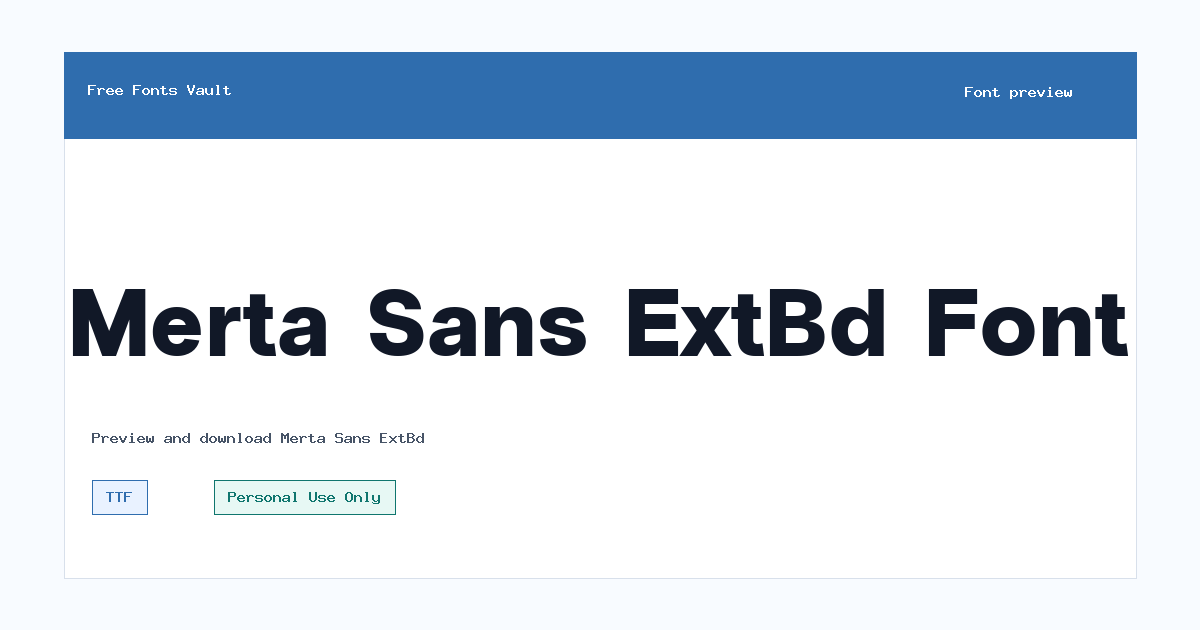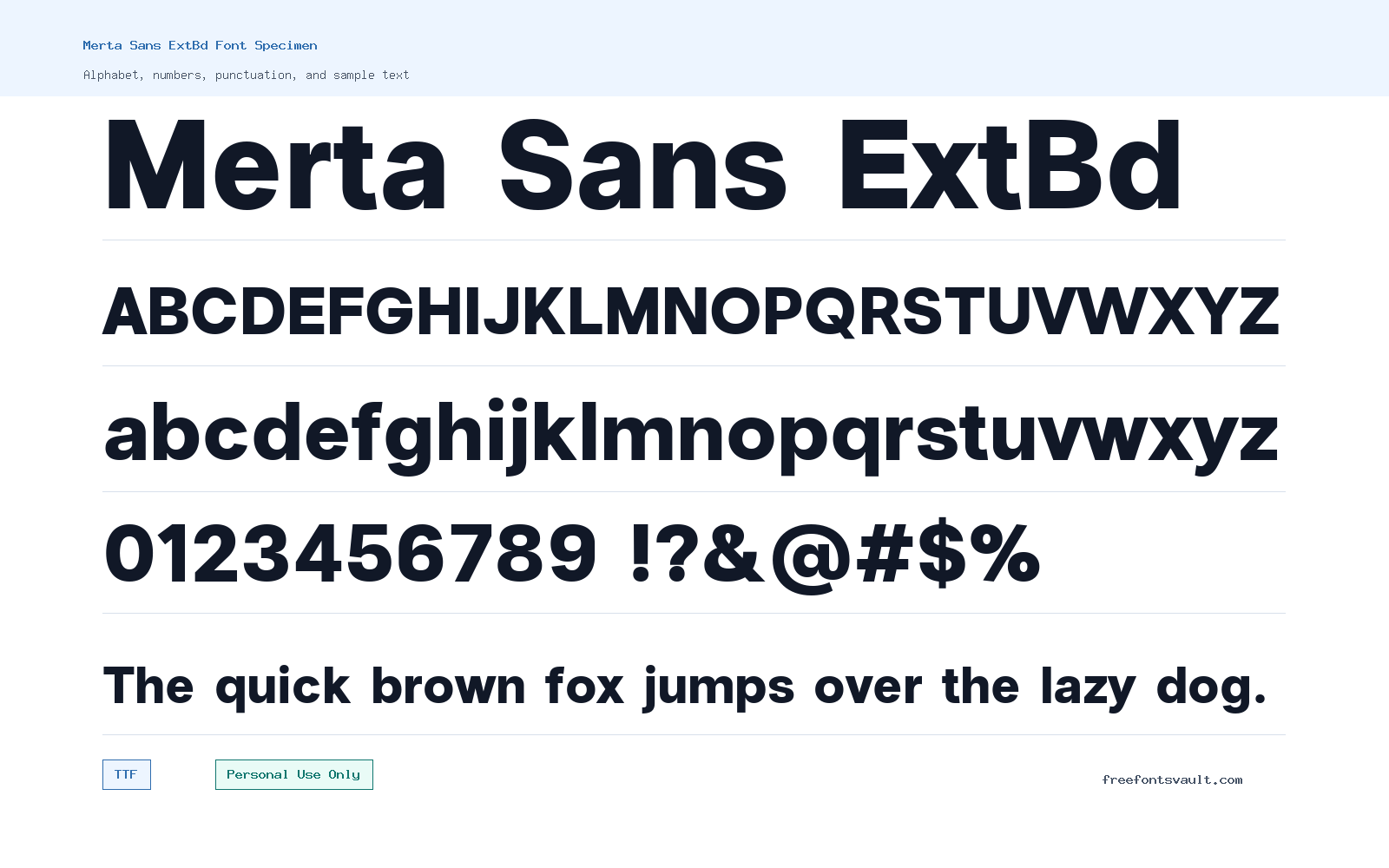
Merta Sans ExtBd
- Designer Diki Pradipta Tri Atmojo
- Foundry Lettertype Studio Co.
Merta Sans ExtBd font.
Merta Sans ExtBd is an extra-bold sans serif font with a strong, clean presence. It is a good choice when you want short text to feel solid and direct, especially in previews, display layouts, and personal design experiments.
About Merta Sans ExtBd
Merta Sans ExtBd uses a heavy sans serif style that gives words a firm visual weight. The extra-bold cut is best suited to headings, title lines, posters, banners, packaging concepts, and logo-style mockups where the text needs to stand out quickly. Because the available font file is a TrueType font, it should be easy to test in common design apps and many desktop environments that support TTF files.
This is not the kind of font you would normally choose for long paragraphs. Its strength is short, high-impact text: brand name drafts, social graphics, thumbnails, event titles, hero sections, and bold callout words. In a web mockup, try it for navigation highlights, large headings, or promotional blocks, then pair it with a lighter, simpler sans serif for body copy. That contrast helps Merta Sans ExtBd keep its punch without making the whole layout feel too heavy.
- Extra-bold sans serif weight for strong headlines and display text
- Clean upright style suited to modern title treatments and layout mockups
- Works best in short text settings where impact matters more than paragraph readability
- Useful for personal posters, logo drafts, thumbnails, banners, and web concept previews
- Logo concepts and brand name mockups
- Website hero headings and landing page drafts
- Social media thumbnails and bold quote cards
- Packaging concepts, labels, and display typography tests
- Personal design experiments that need a compact, heavy sans serif
Start by previewing the font with the exact words you plan to use. Extra-bold fonts can look excellent in a single word or short phrase, but spacing, word length, and letter combinations matter more at large sizes. Test uppercase and mixed-case versions, then adjust tracking if your design app allows it. For pairing, keep the second font simple: a regular-weight sans serif is usually safer than another heavy display face. If you use Merta Sans ExtBd in a logo mockup, treat it as a visual draft unless you have confirmed the license for commercial branding.
What kind of font is Merta Sans ExtBd?
It is an extra-bold sans serif font designed for strong display use, such as headings, posters, logo drafts, and short promotional text.
Is Merta Sans ExtBd good for body text?
It is better for short display text. For paragraphs, pair it with a lighter, more readable sans serif font.
Who designed Merta Sans ExtBd?
The designer is listed as Diki Pradipta Tri Atmojo, and the foundry is listed as Lettertype Studio Co.